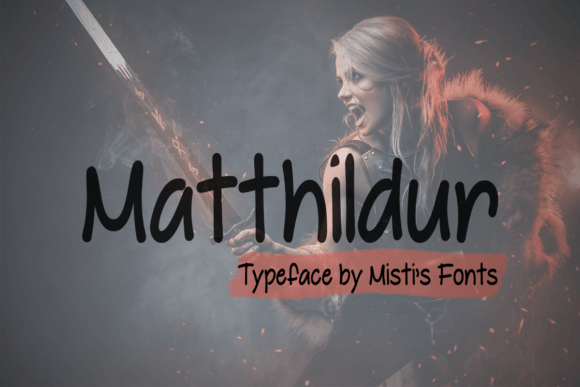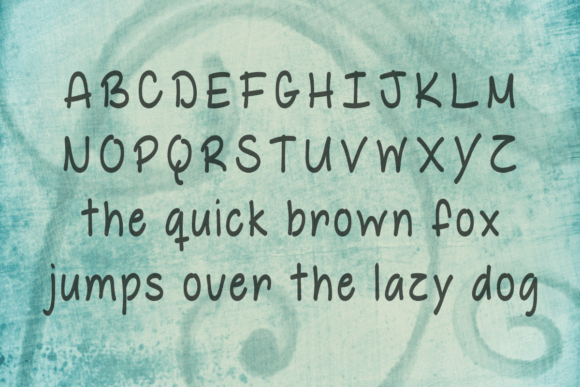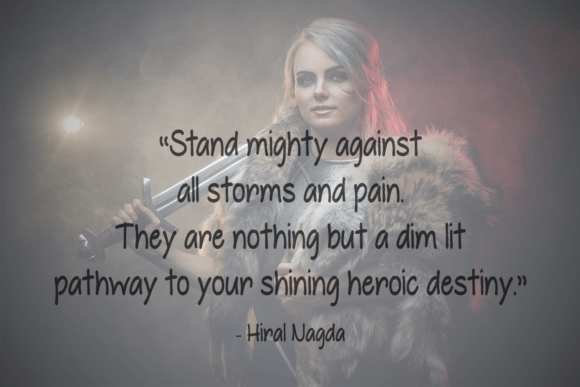
Matthildur Font
About Matthildur Font
“Matthildur” is a bold and lively cartoon-style typeface that brings a fun and whimsical touch to your designs. With its playful appearance, this font is well-suited for a variety of projects, making it an excellent choice for logos, shop banners, advertisements, product labels, and more.
The bold nature of “Matthildur” ensures that it grabs attention and makes a statement in your designs. Its cartoon-style aesthetic adds a touch of playfulness, making it a versatile option for projects that aim to convey a sense of fun and creativity.
Whether you’re crafting a vibrant logo, designing eye-catching shop banners, or creating playful product labels, “Matthildur” injects a dose of personality into your projects. Its bold and whimsical appearance allows it to stand out and leave a lasting impression.
Immerse yourself in the playful charm of “Matthildur,” and you’ll discover its ability to add a unique and animated quality to your designs. Let this font be the source of fun and creativity, enhancing your visual communication across various applications.
In summary, “Matthildur” is more than just a font; it’s a design tool that brings a bold and whimsical cartoon style to your projects. Embrace the fun and vibrant character of “Matthildur” as you infuse your designs with creativity and playfulness.